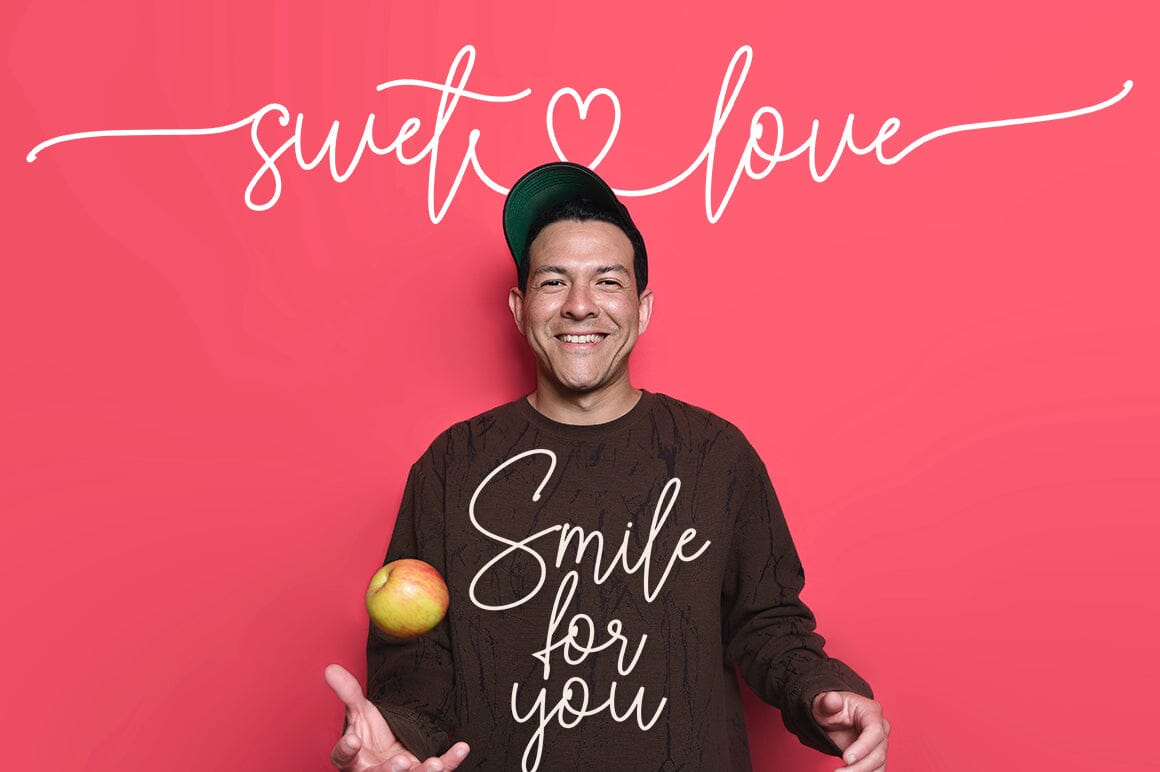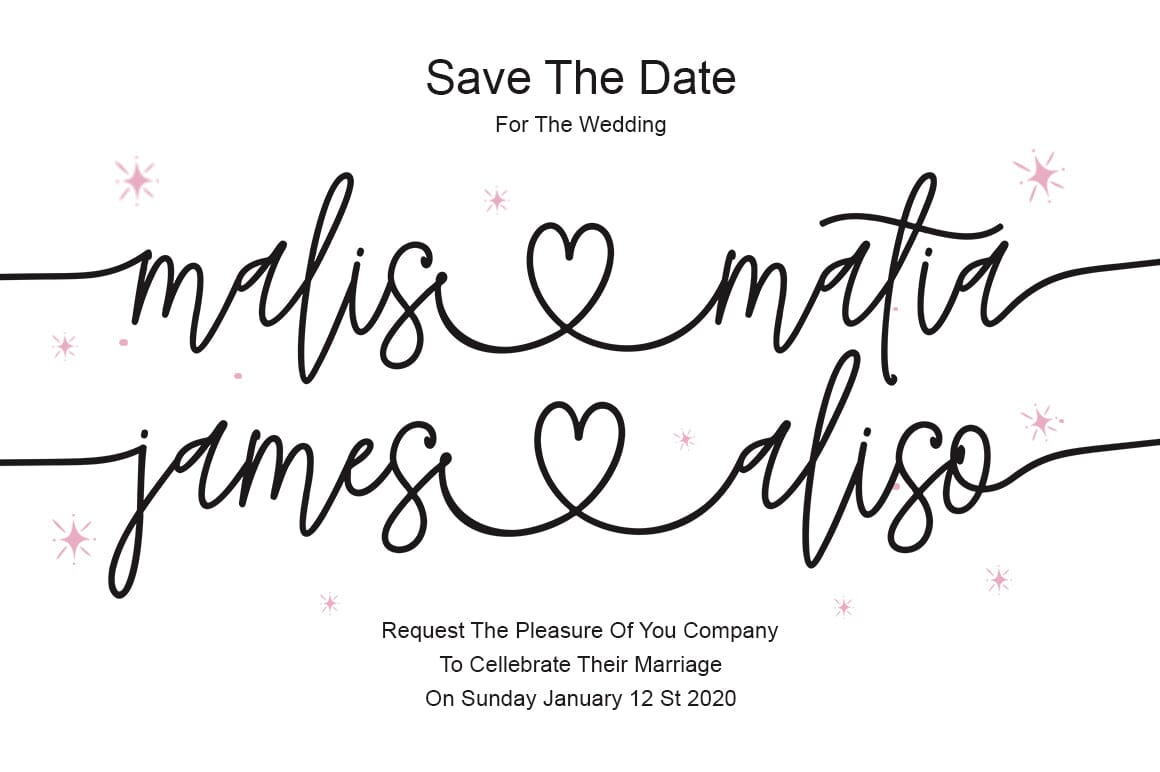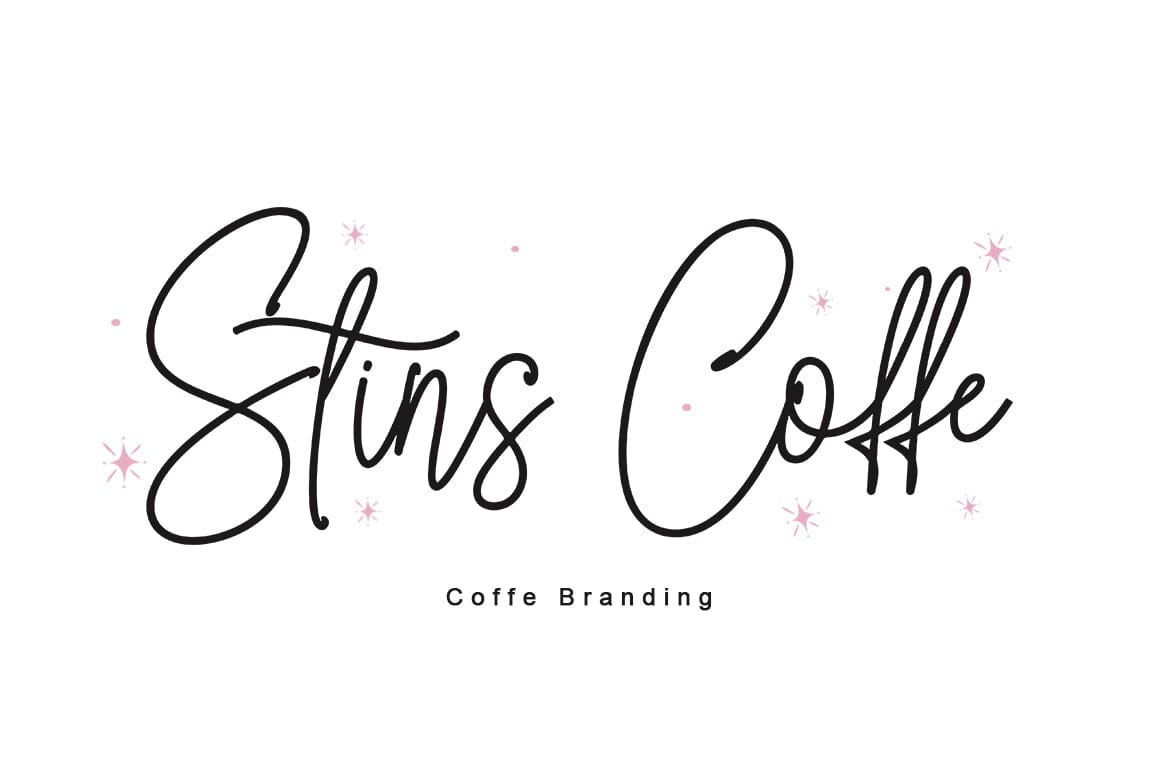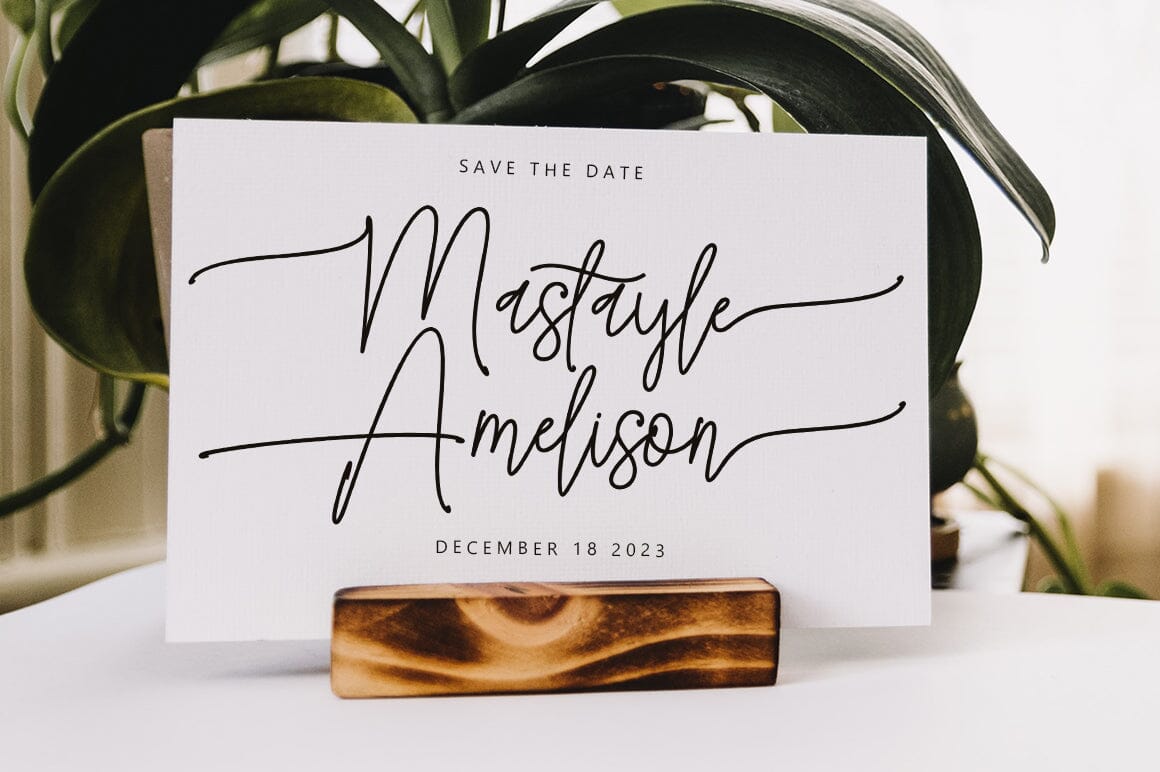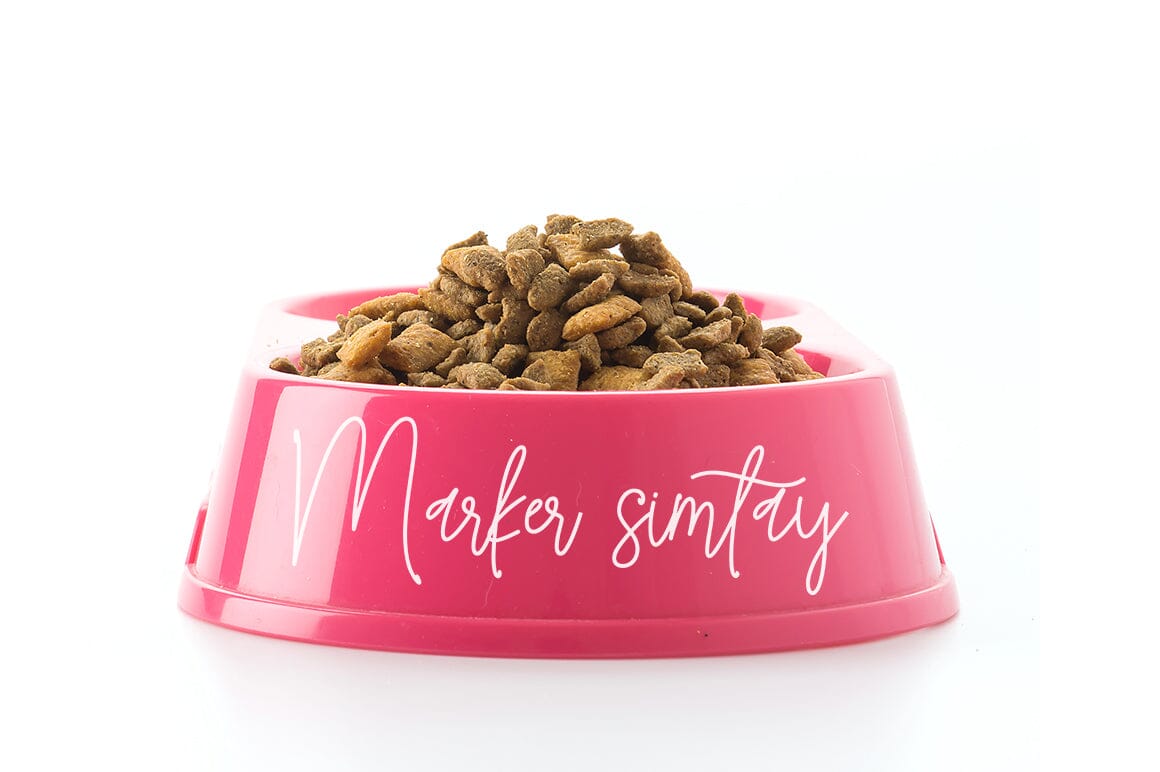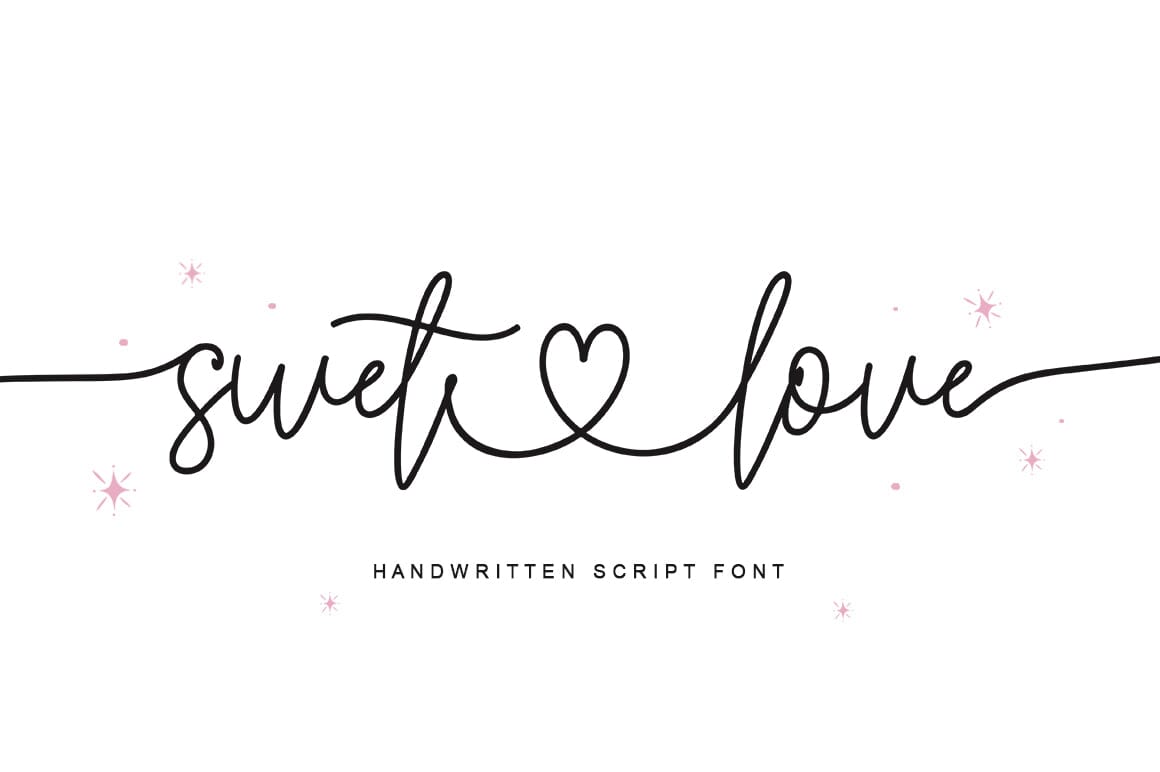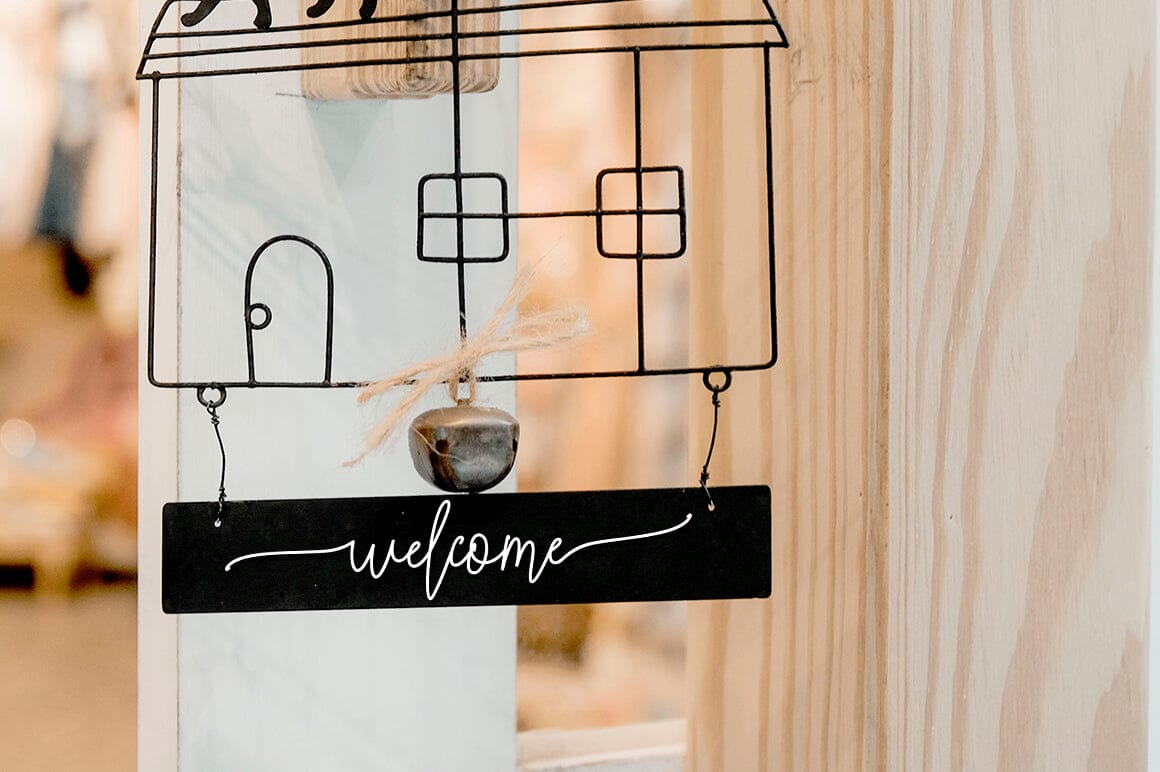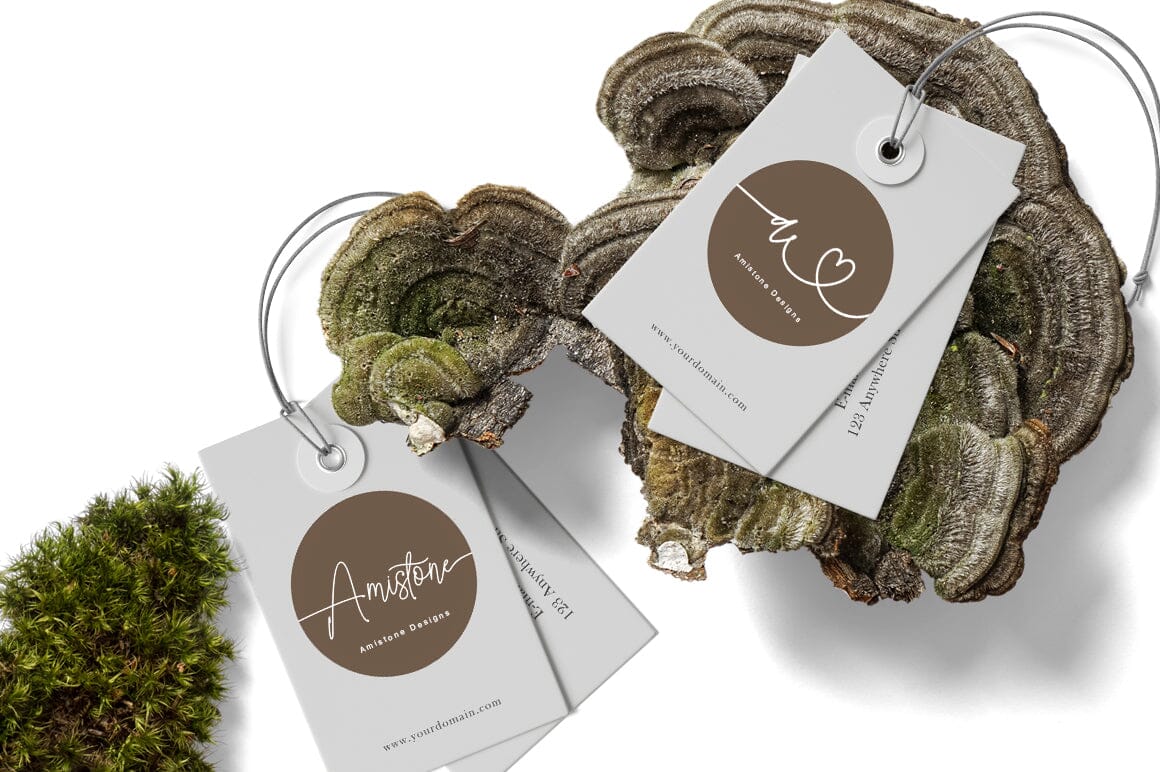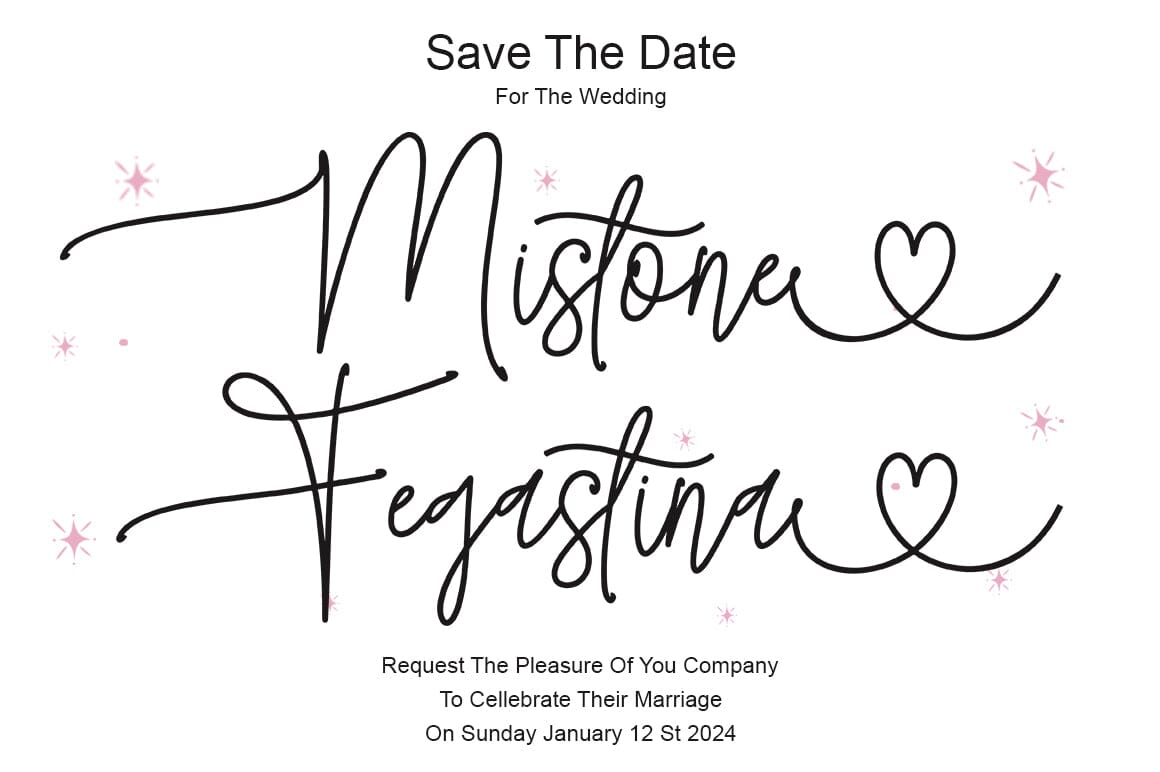
Sweet Love
About Sweet Love
Proudly Present, Sweet Love is a Handwritten Font Sweet Love is perfect for product packaging, branding project, megazine, social media, wedding, or just used to express words above the background. This font includes OTF, TTF & , Singeldust also multilingual support. Enjoy the font, feel free to comment or feedback, send me PM or email. Thank you!